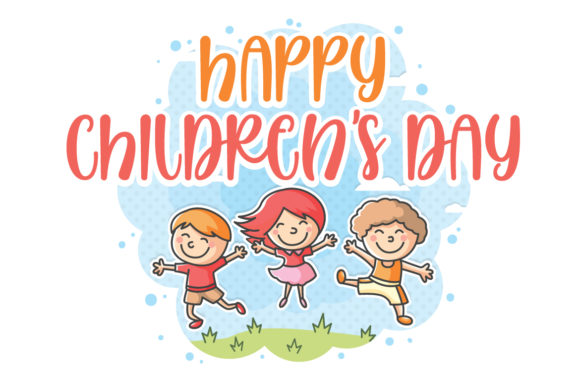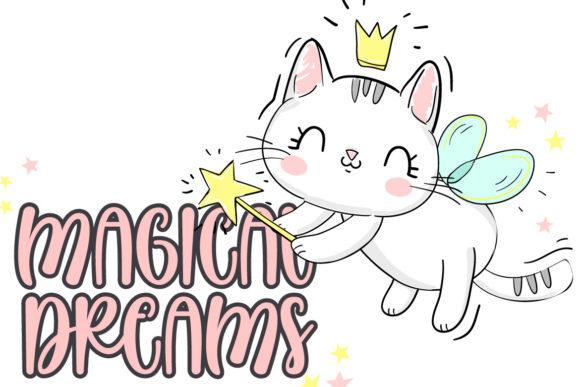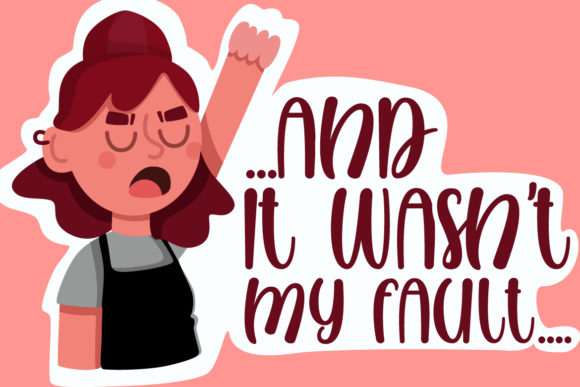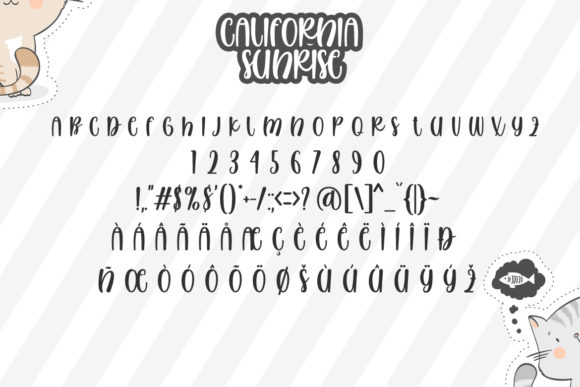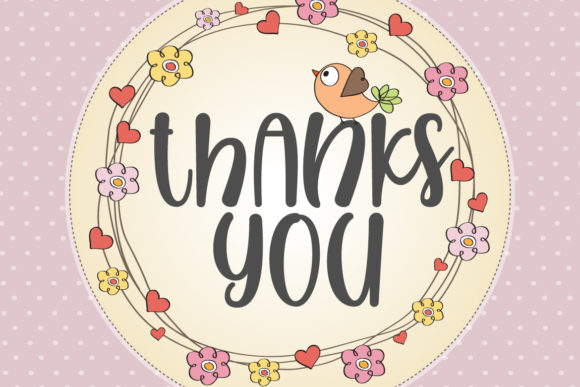
Bring a Touch of California Charm to Your Designs
There’s nothing quite like the feeling of sipping your morning coffee, surrounded by the warm glow of a California sunrise, and watching your creativity spark. It’s moments like these that remind us of the beauty of the world around us and the power of art to capture its essence. For designers, finding the perfect font to match this feeling can be a challenge – but what if we told you that there’s a font that embodies the spirit of the Golden State itself?
Meet the California Sunrise Font, a sweet and soft hand-lettered script that’s perfect for adding a decorative touch to your designs. With its playful rounded characters and full Latin support, this font is a must-have for any designer looking to create stunning crafting art. Whether you’re working on wedding invitations, social media posts, or greeting cards, the California Sunrise Font is the perfect tool to bring a touch of California charm to your work.
California Sunrise Font Key Features
- Font Family: California Sunrise is a sans-serif font, designed to evoke the feeling of a California sunrise.
- Font Size: Offers a range of sizes, from 8pt to 72pt, making it suitable for various applications, including body text and headings.
- Resolution: Designed to be scalable, making it suitable for use at high resolutions, such as 300 DPI.
- Unique Characteristics: Features a unique blend of modern and vintage elements, with a warm and inviting tone, making it perfect for branding and advertising projects.
California Sunrise Font Review
Overall, I think the California Sunrise Font is a beautiful and eye-catching choice for many designs. ✨ The font’s unique blend of modern and vintage elements creates a captivating aesthetic that can add a touch of California vibes to any project. ✨ The font is highly customizable, with a wide range of sizes, colors, and styles available. ✨
- Unique blend of modern and vintage elements
- Captivating aesthetic
- Wide range of sizes, colors, and styles available
However, like any font, the California Sunrise Font has its limitations. ⚠️ The font may not be suitable for all projects, particularly those that require a more conservative or traditional look. ⚠️ Additionally, the font’s unique elements may be difficult to read in certain contexts, such as in small sizes or on low-resolution screens. ⚠️
- May not be suitable for conservative or traditional projects
- Difficult to read in small sizes or on low-resolution screens
Overall, I think the California Sunrise Font is a great choice for designers who want to add a touch of California vibes to their projects. While it may have some limitations, the font’s unique aesthetic and high level of customization make it a versatile and effective choice for many designs.
Getting the Most Out of California Sunrise Font
Use California Sunrise Font for designs that require a friendly, approachable feel.
It’s particularly well-suited for branding, signage, and promotional materials.
Experiment with different font sizes, colors, and combinations to find the perfect balance for your design.
California Sunrise Font is ideal for:
Branding and logos
Signage and wayfinding
Print and digital advertising
Website headers and footers